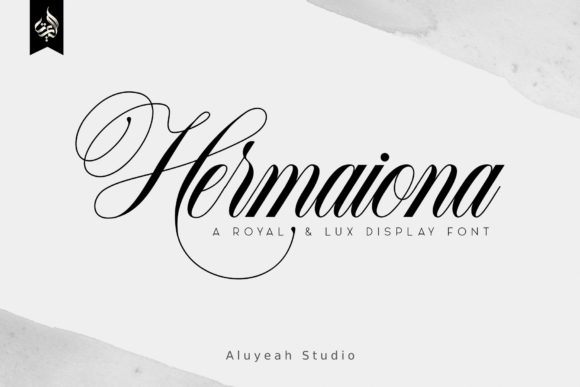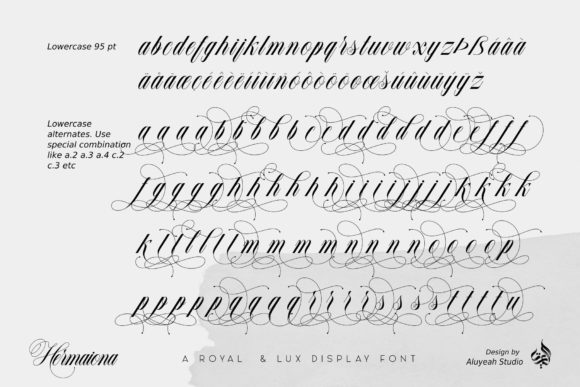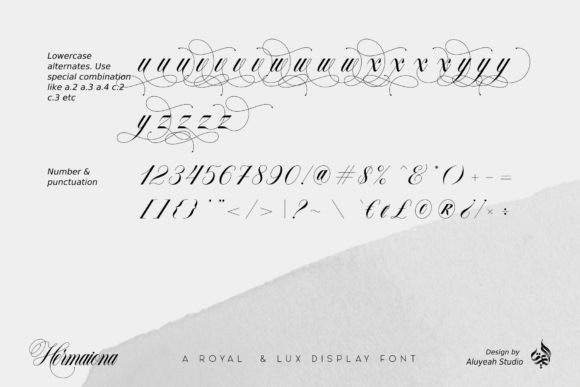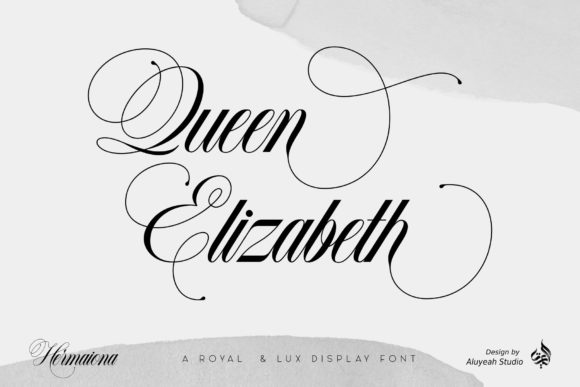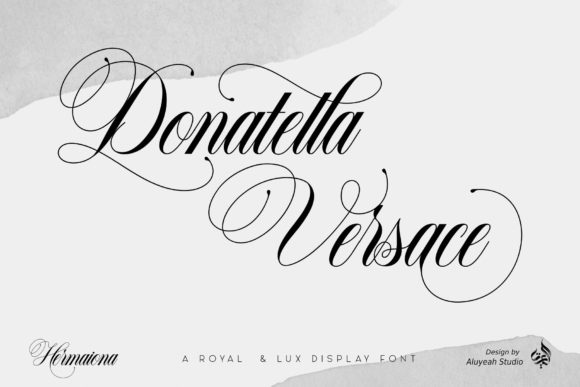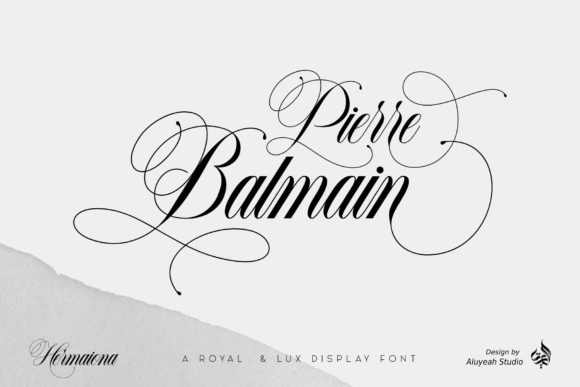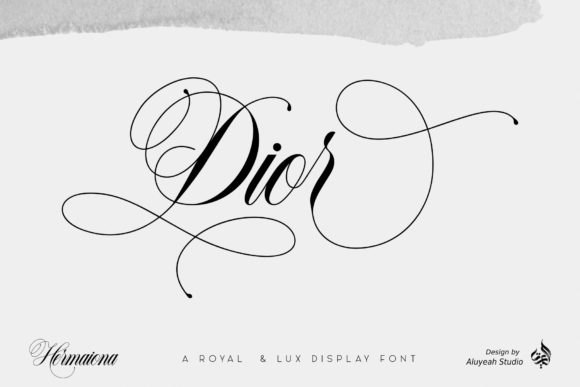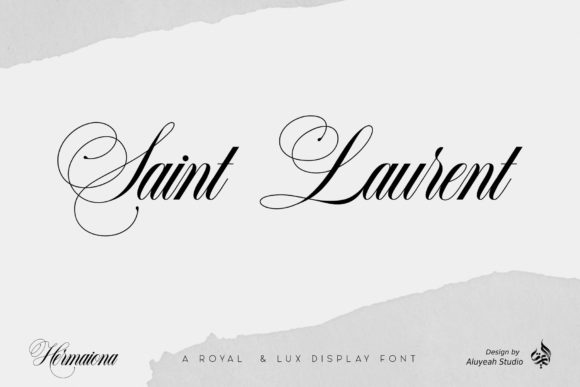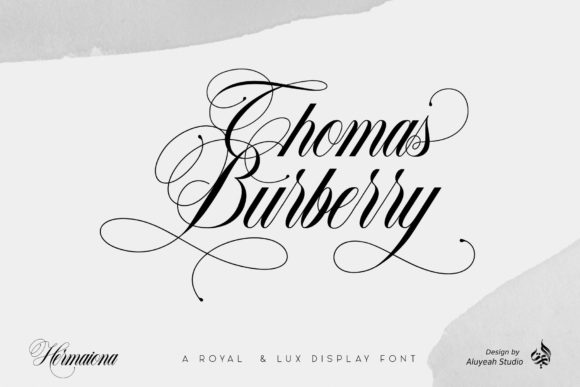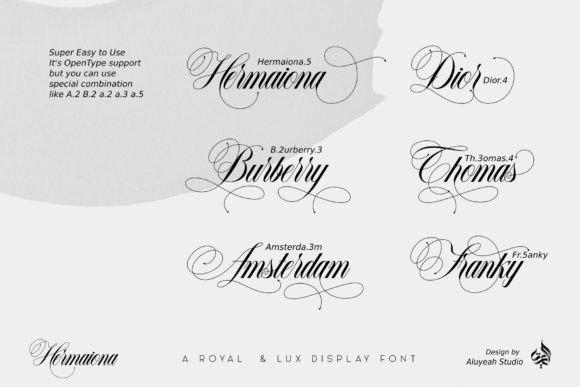
AL Hermaiona Font
About AL Hermaiona Font
AL Hermaiona is an elegant handwritten font. This stunning font is a stylish homage to classic calligraphy. It features a varying baseline, smooth lines, gorgeous glyphs and stunning alternates.